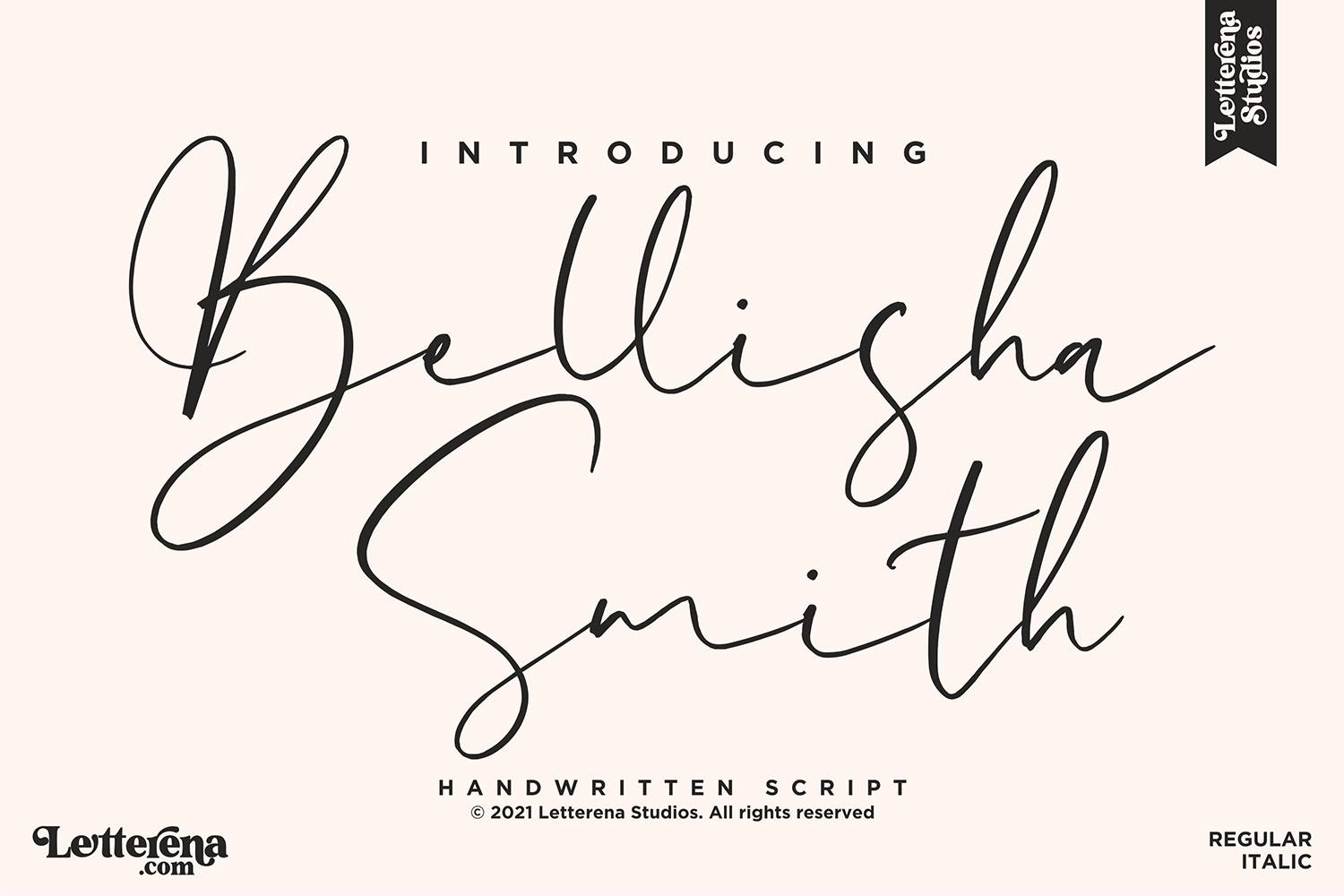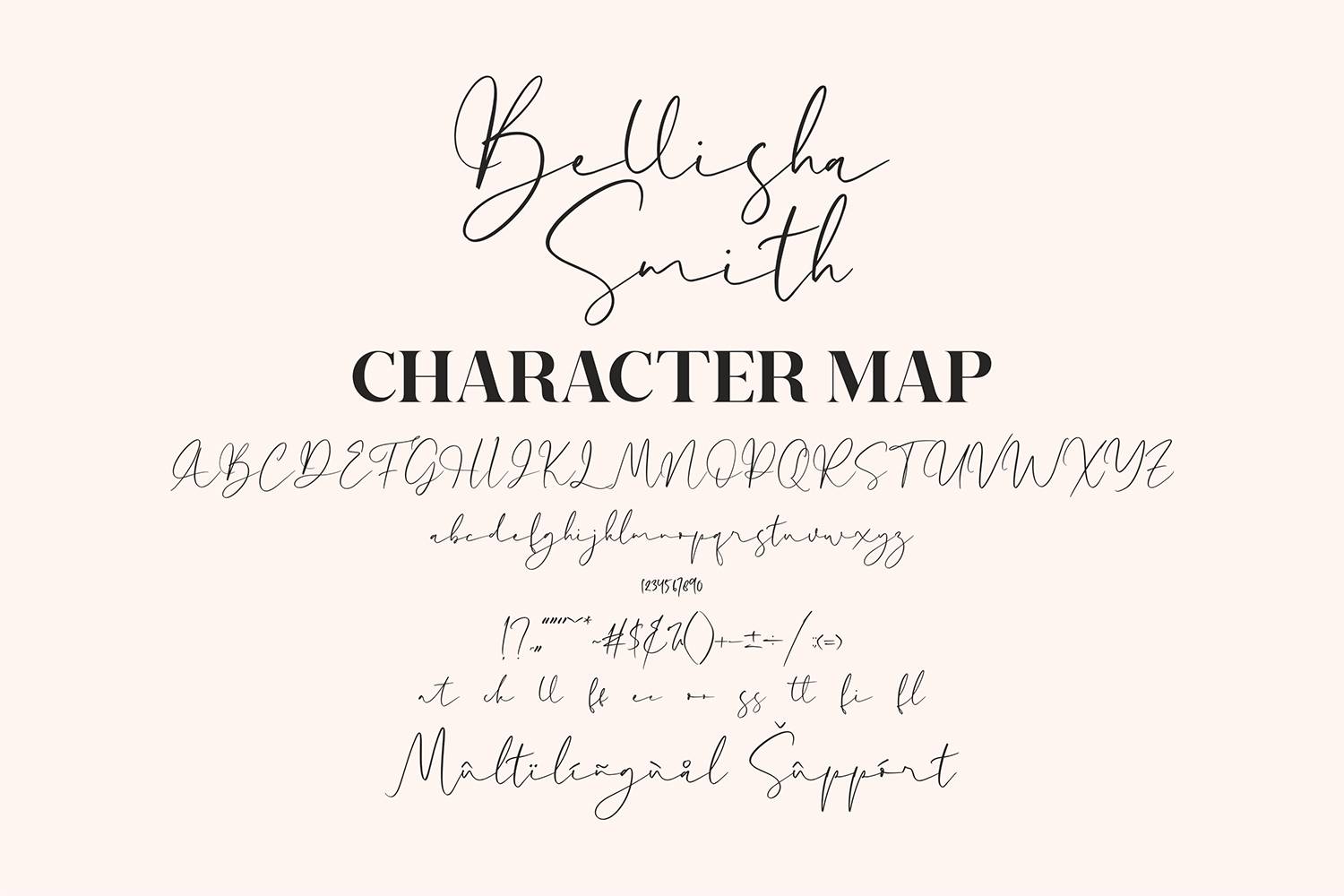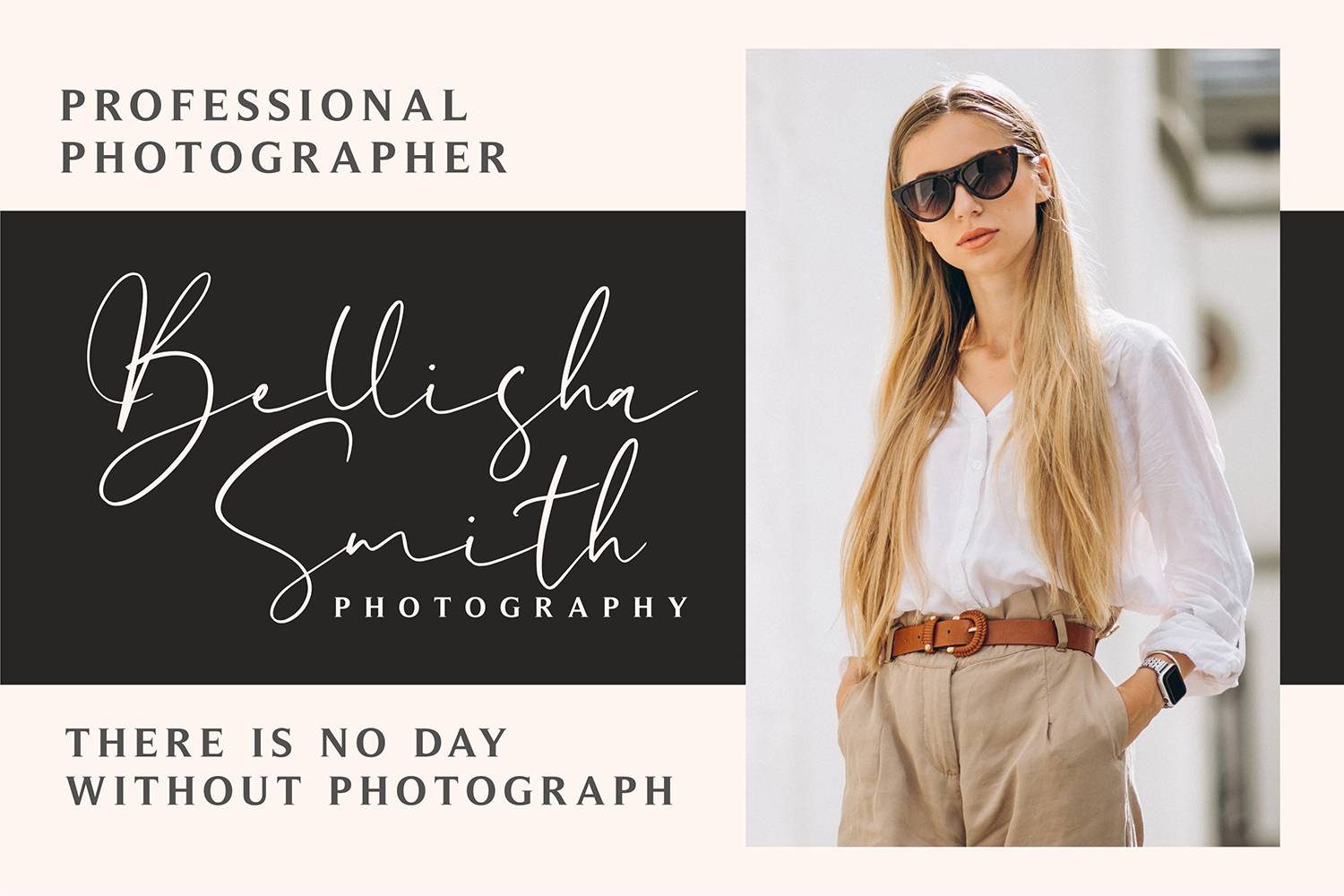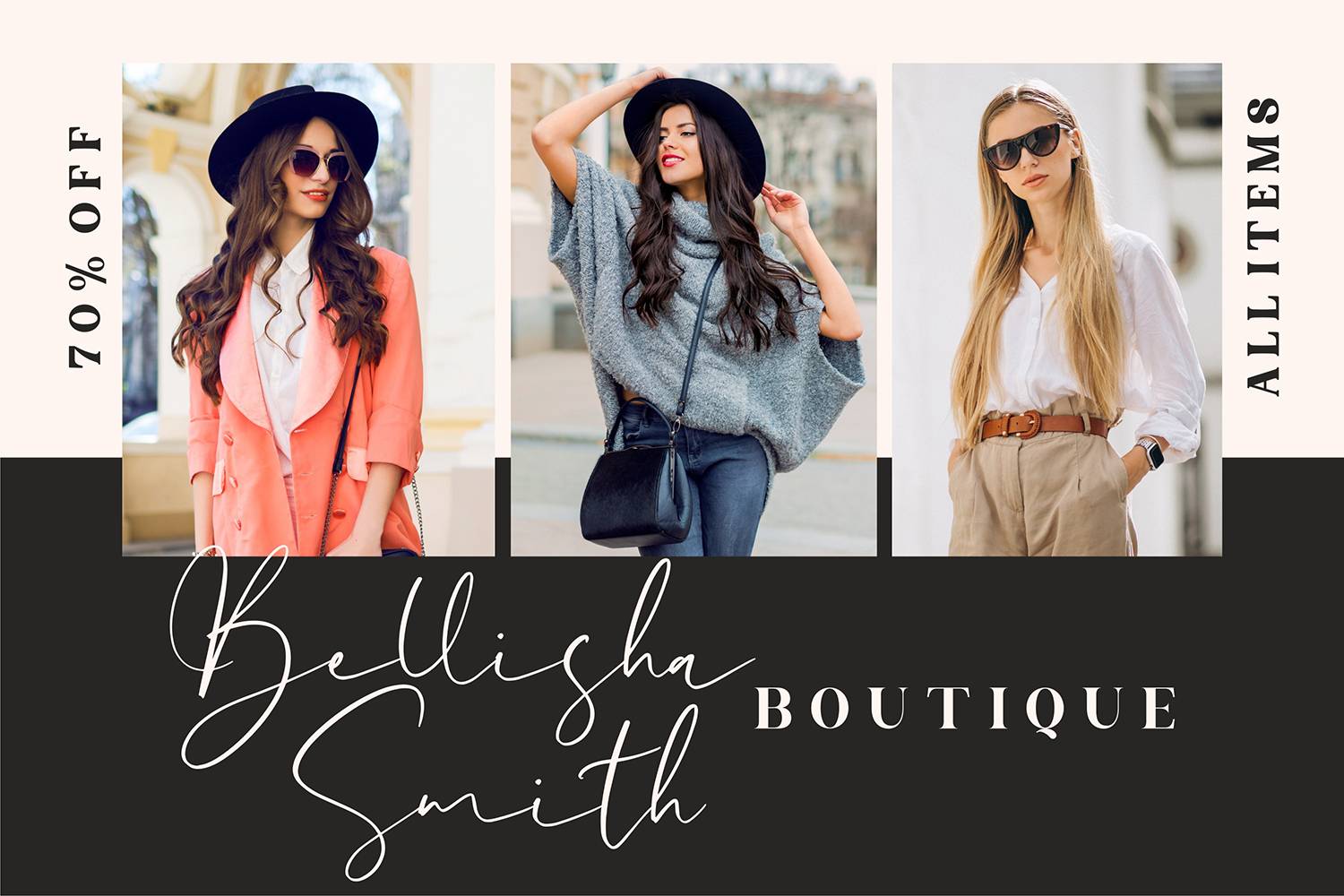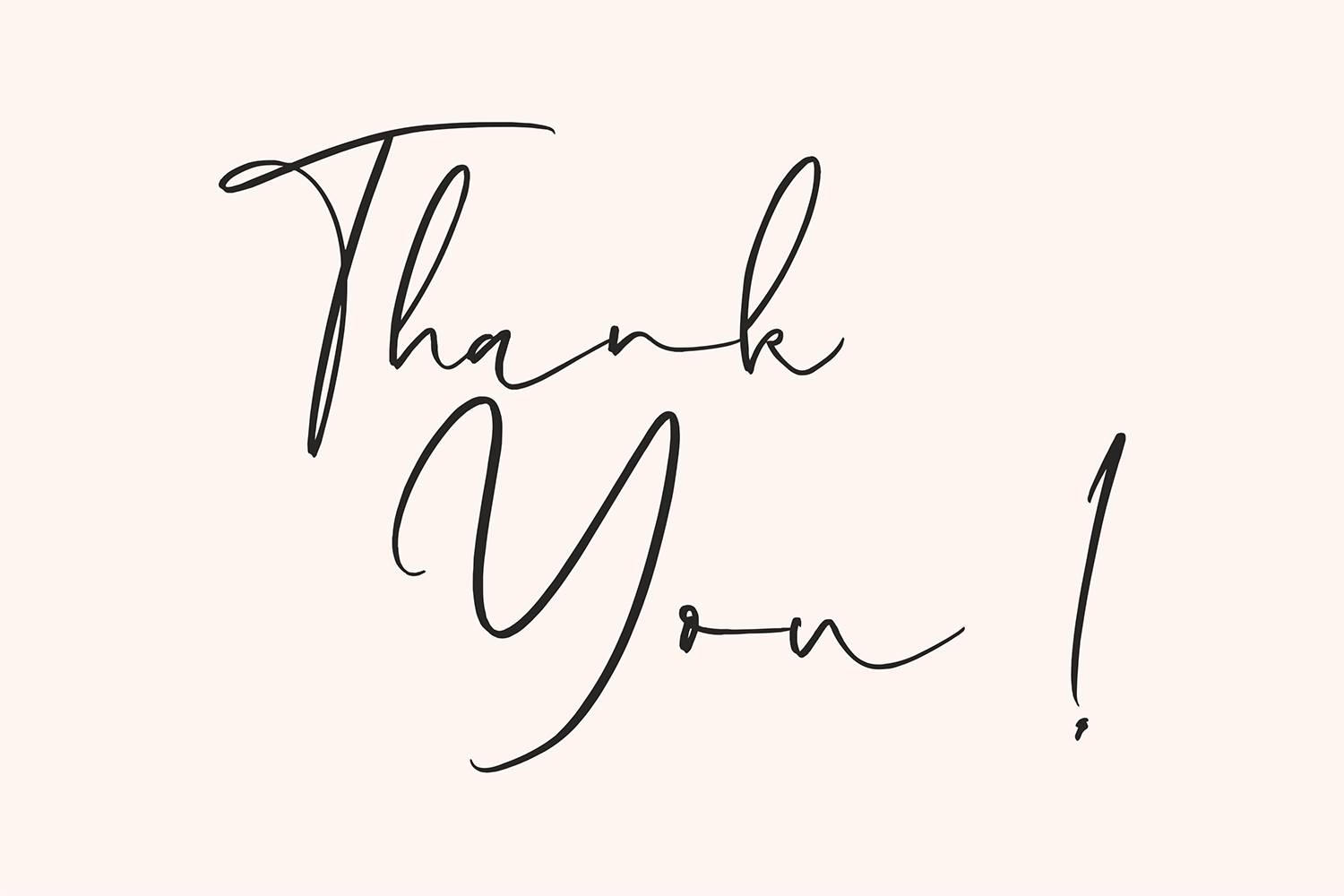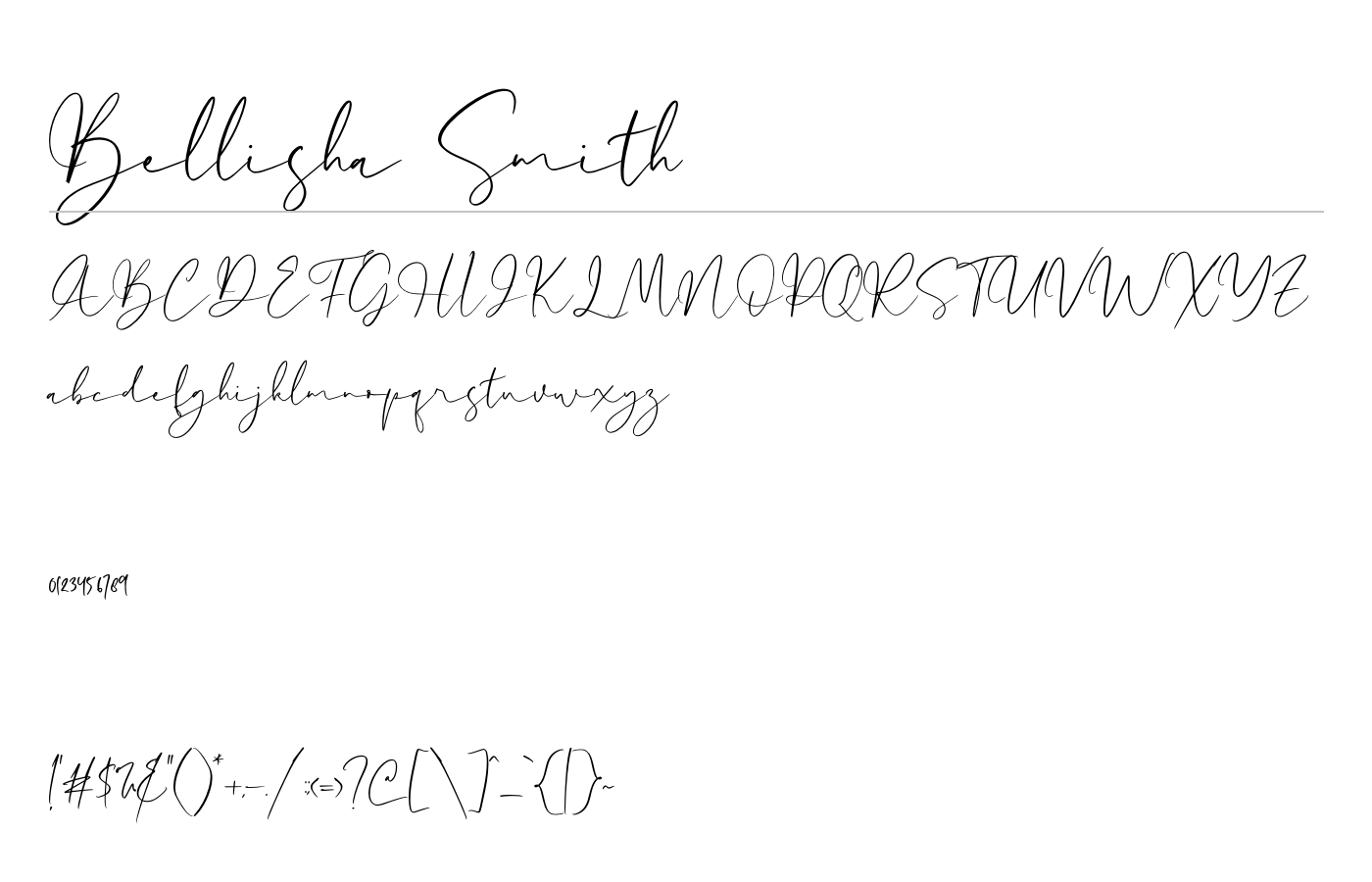
Bellisha is an elegant and delicate script font characterized by its thin, flowing lines and graceful, handwritten style. Its tall, slender letterforms and subtle variations in stroke width give it a refined, sophisticated feel that works beautifully for invitations, branding, and stylish editorial projects. This font's airy, casual elegance makes it ideal for designs seeking a personal, artistic touch with a modern, romantic vibe.
Bellisha Font
About Bellisha Font
| Font family | Bellisha Font |